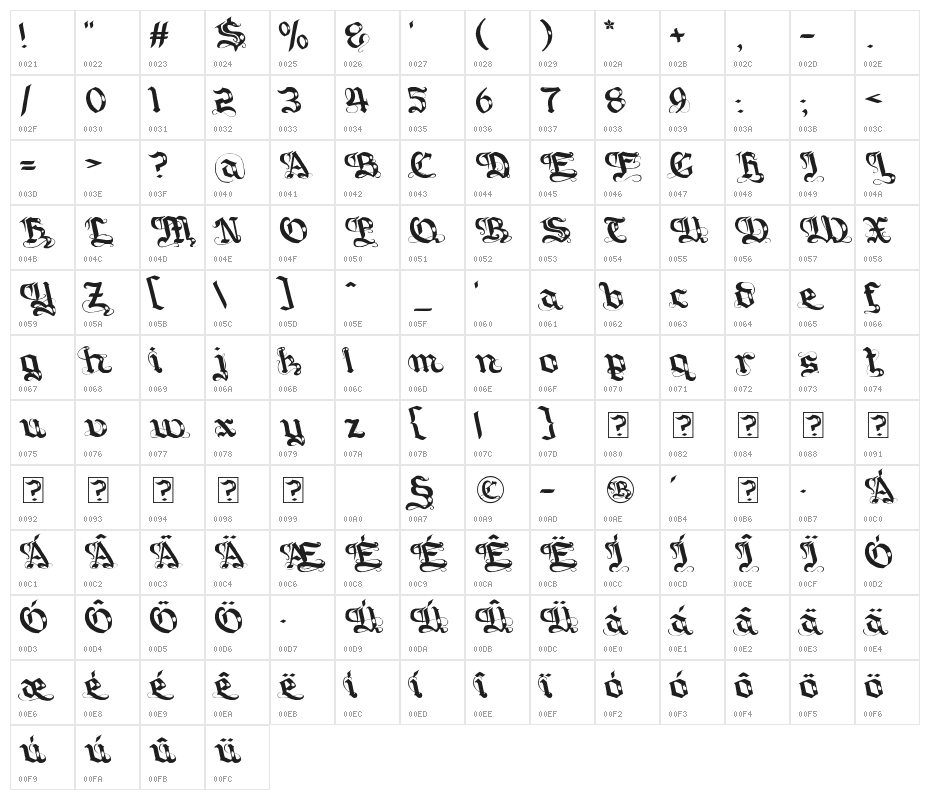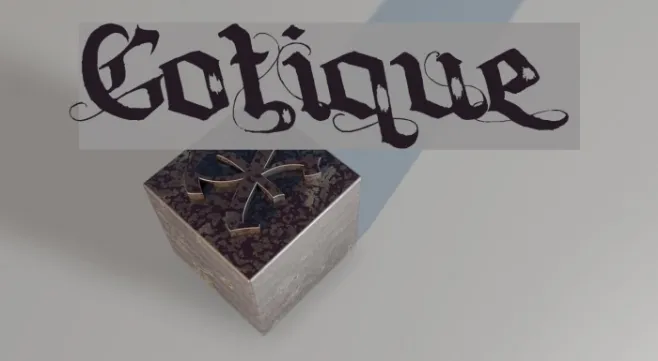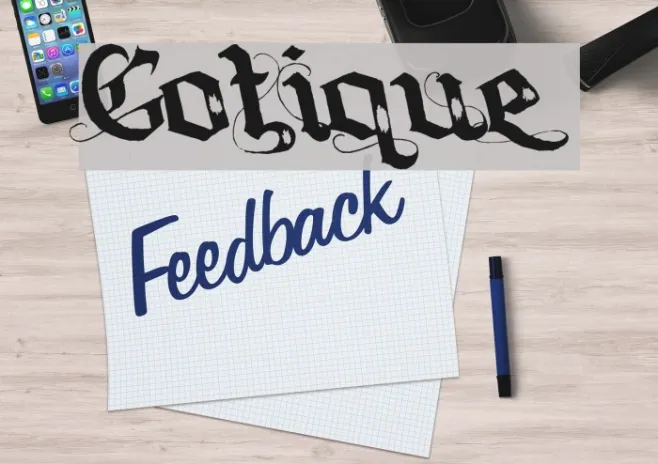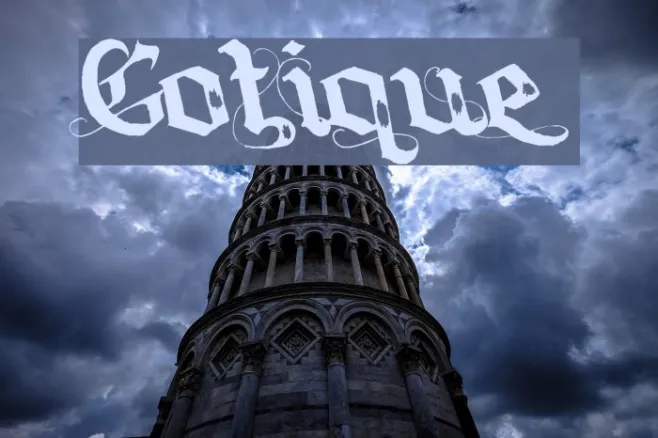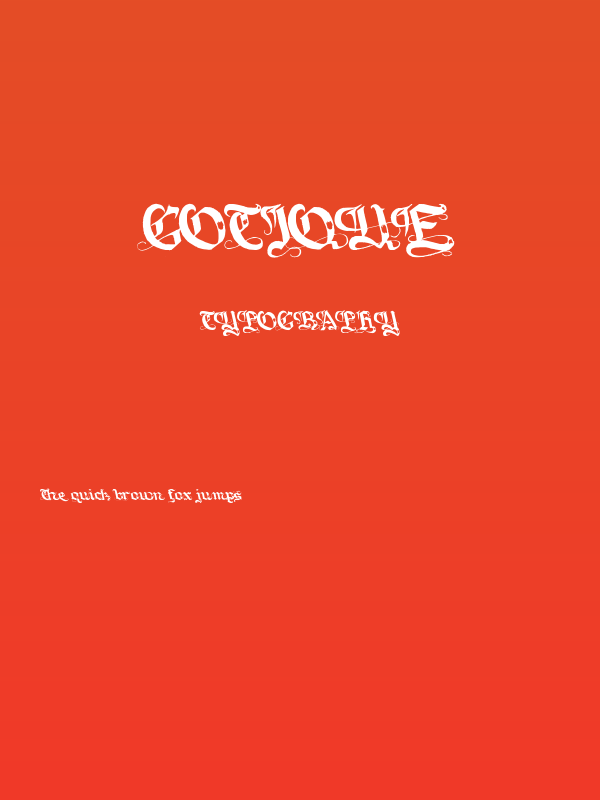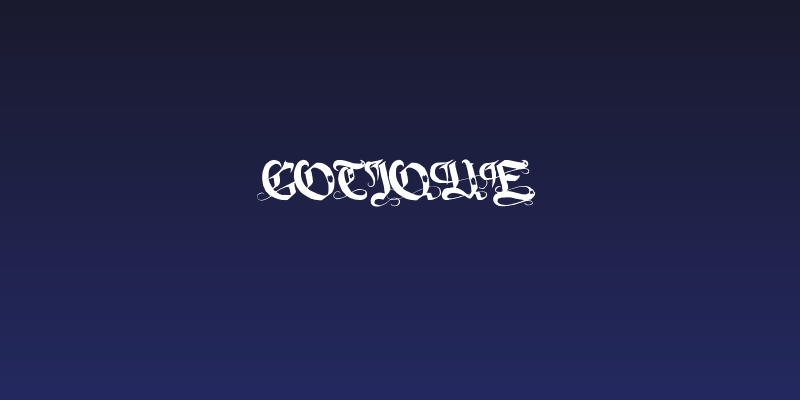
Gotique Font
Gotique Description
This font is a striking example of Blackletter style, characterized by its intricate and ornate design. The letters are bold and dramatic, with sharp angles and elaborate flourishes that give it a gothic and medieval appearance. The uppercase and lowercase letters maintain a consistent style, with the uppercase being slightly more embellished. The numbers and special characters follow the same ornate pattern, ensuring a cohesive look across all characters. This font is highly decorative, making it ideal for projects that require a historical or dramatic flair.
| Proposed Projects | Ideal for historical documents, gothic-themed designs, book covers, tattoos, and event invitations. |